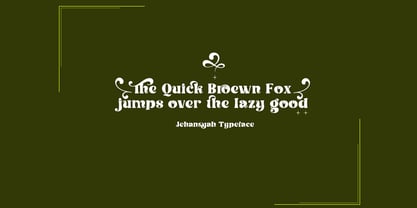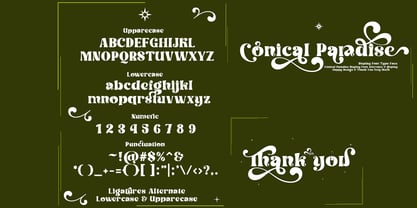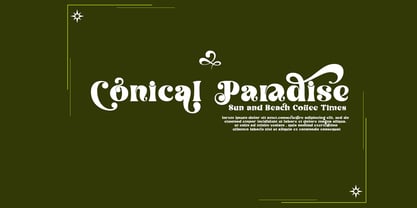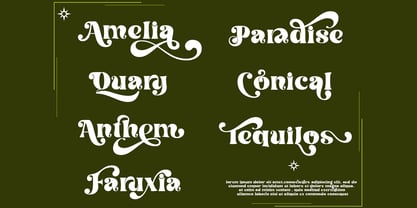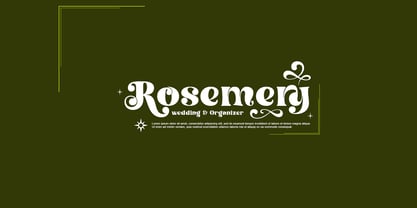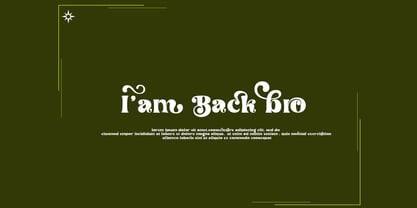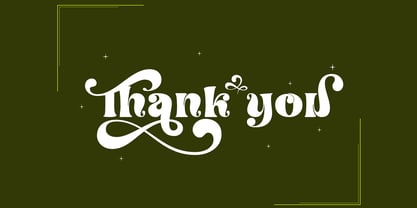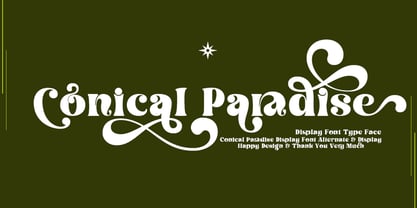
Conical Paradise
by Jehansyah
The Conical Paradise Font Family was designed by Ibram Syah and published by Jehansyah. Conical Paradise contains 1 styles. More about this family
Conical Paradise is a font that is elegant and very stylis, this font is really sweet to use as some of your design work if you want to display a modern and bold style, there are several characters that you can use, as an additional style that will make your design more classy and looks different, This font design is very elegant for all your needs, with a very special appearance it can make your design look very beautiful and have a happy nuance.
Designers: Ibram Syah
Foundry: Jehansyah